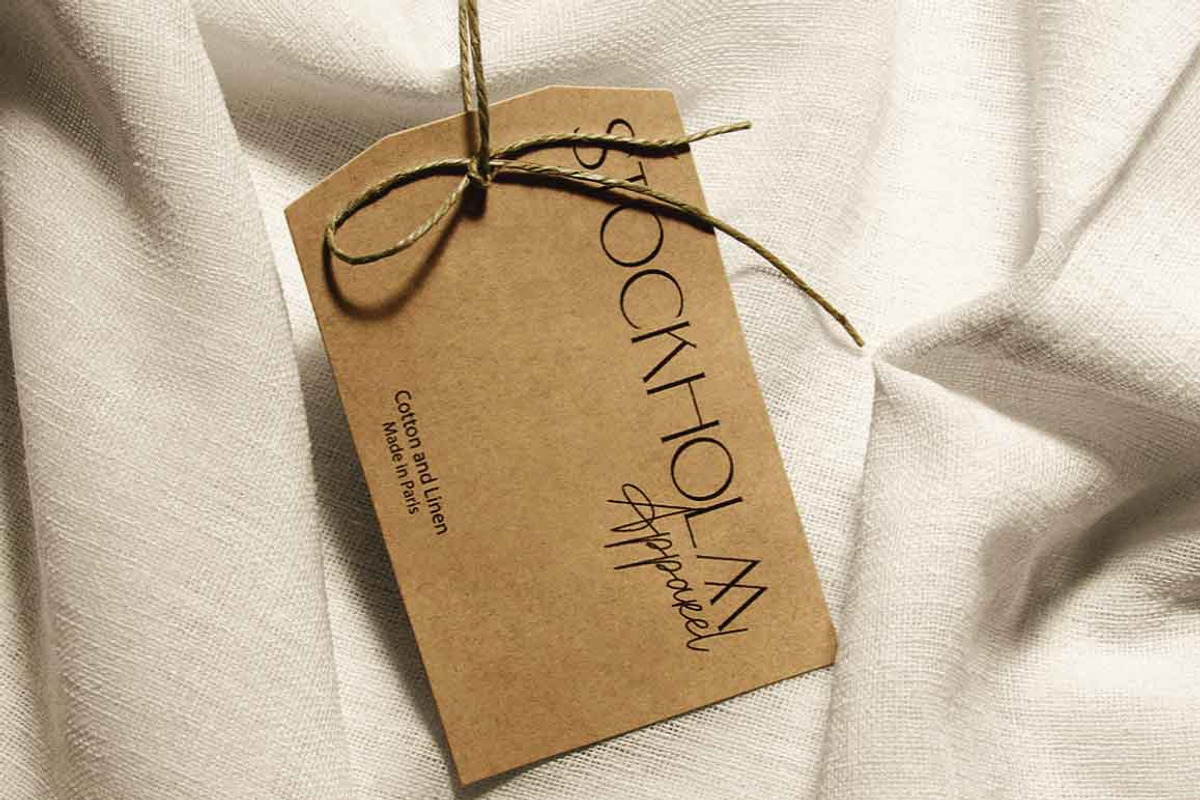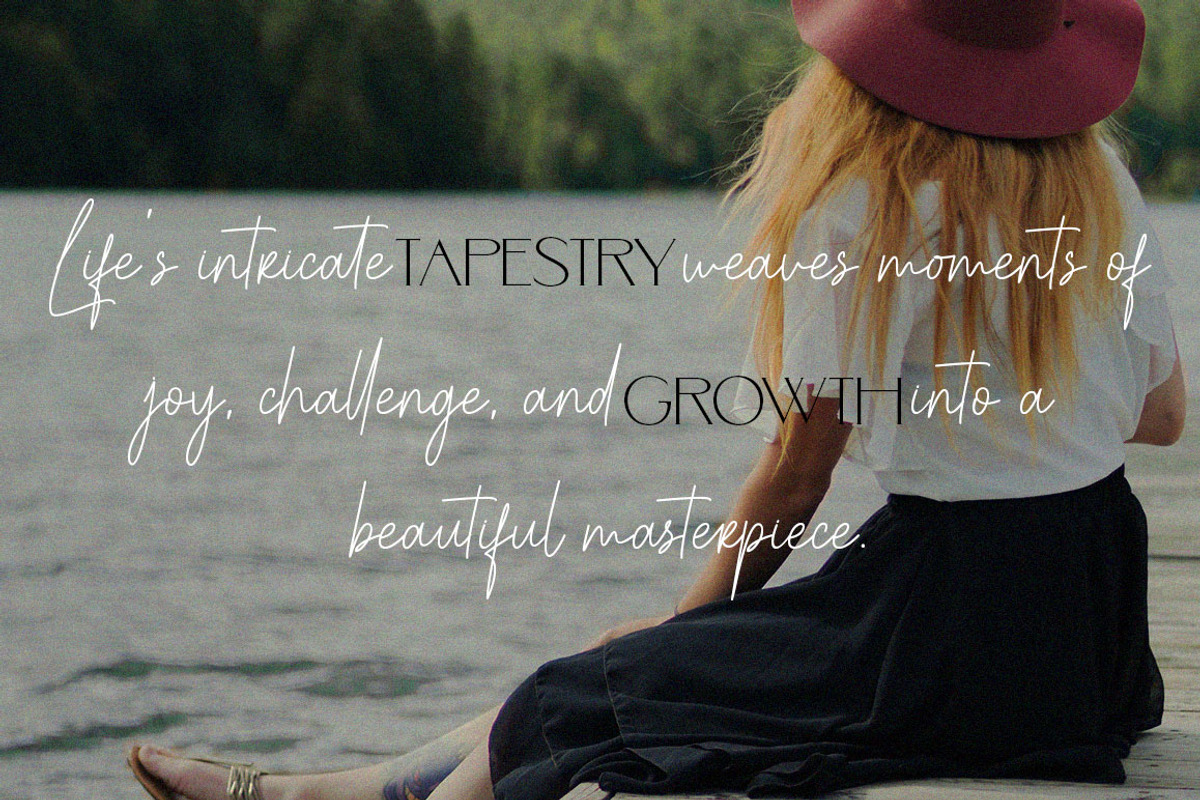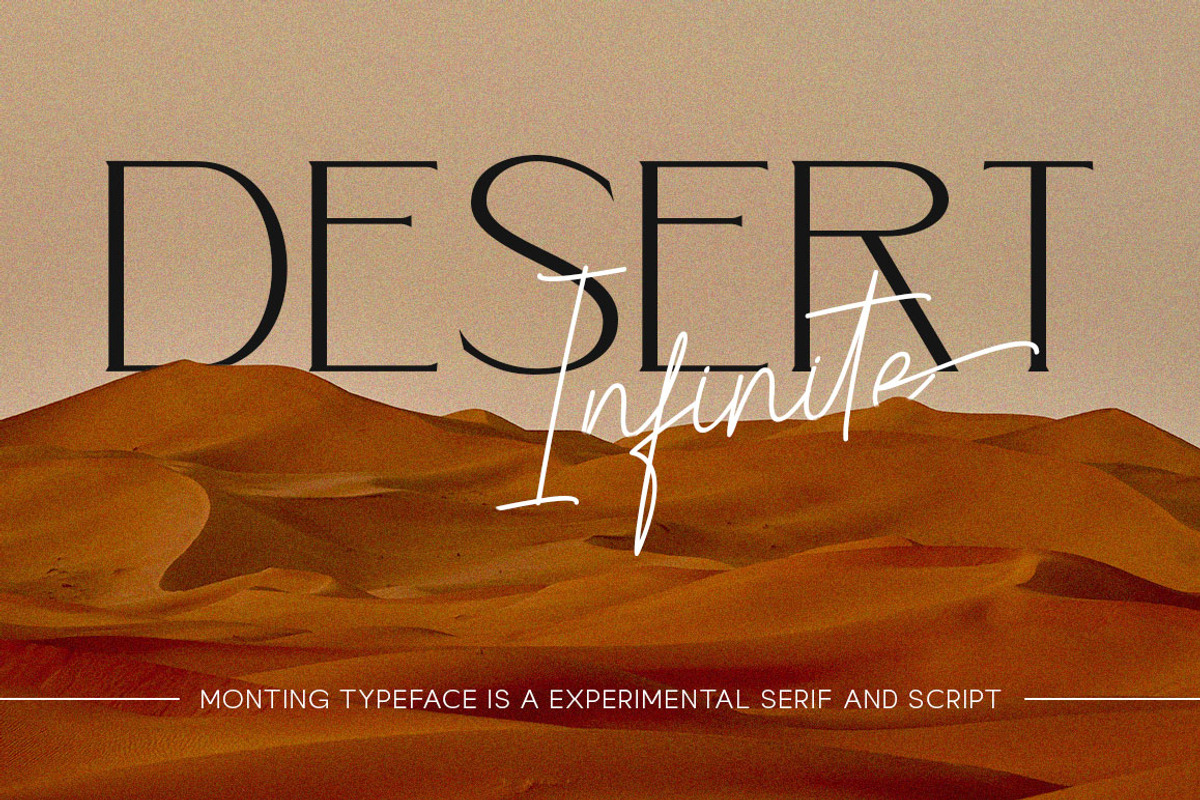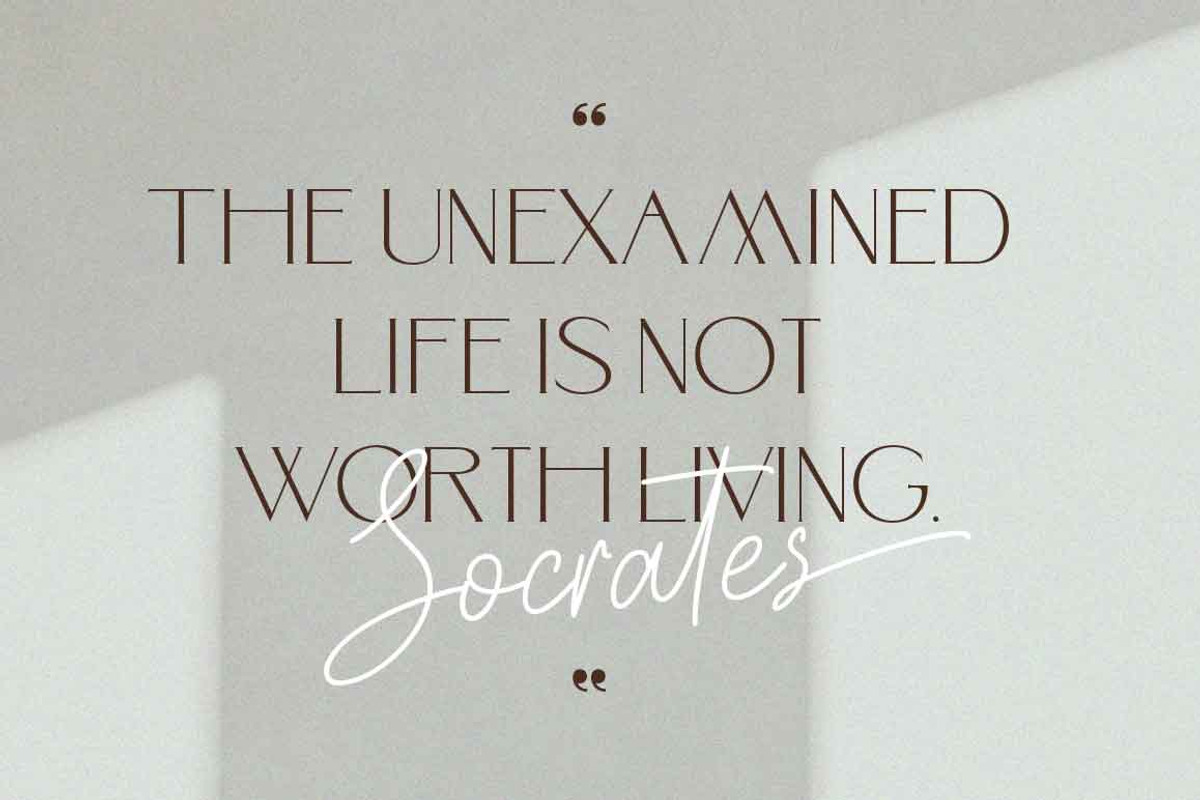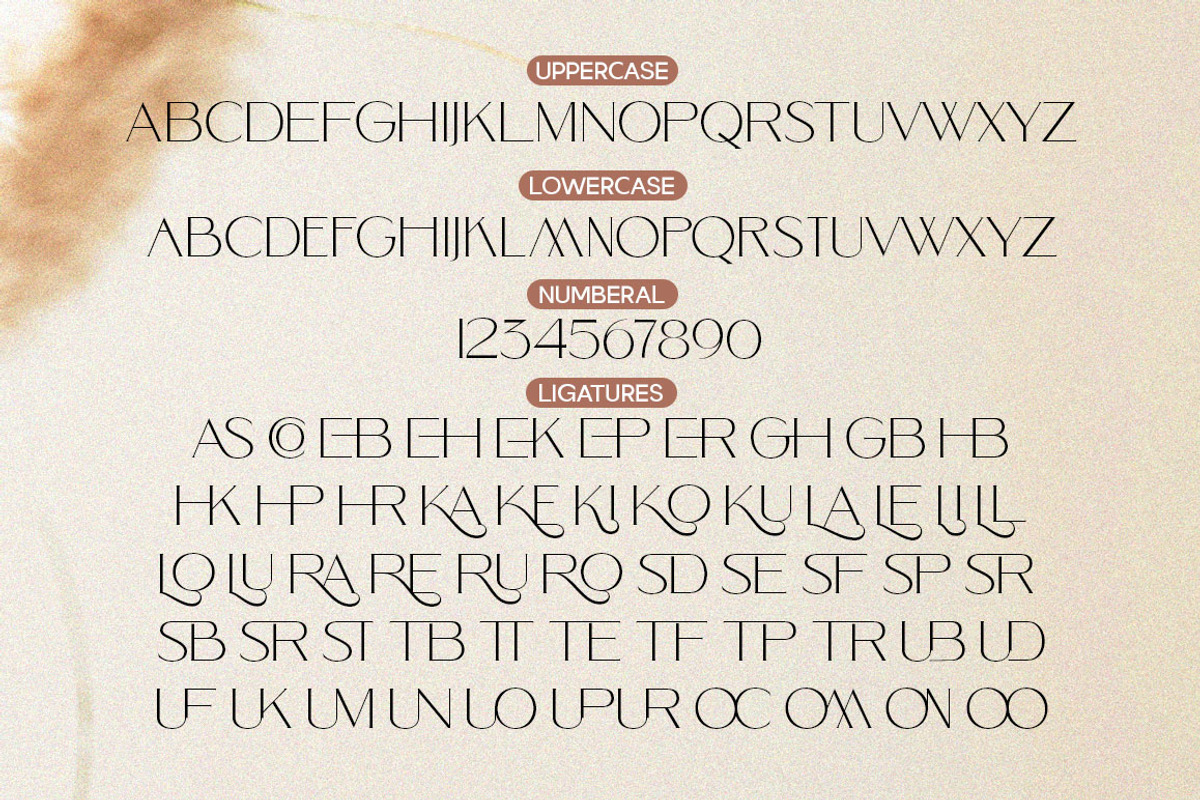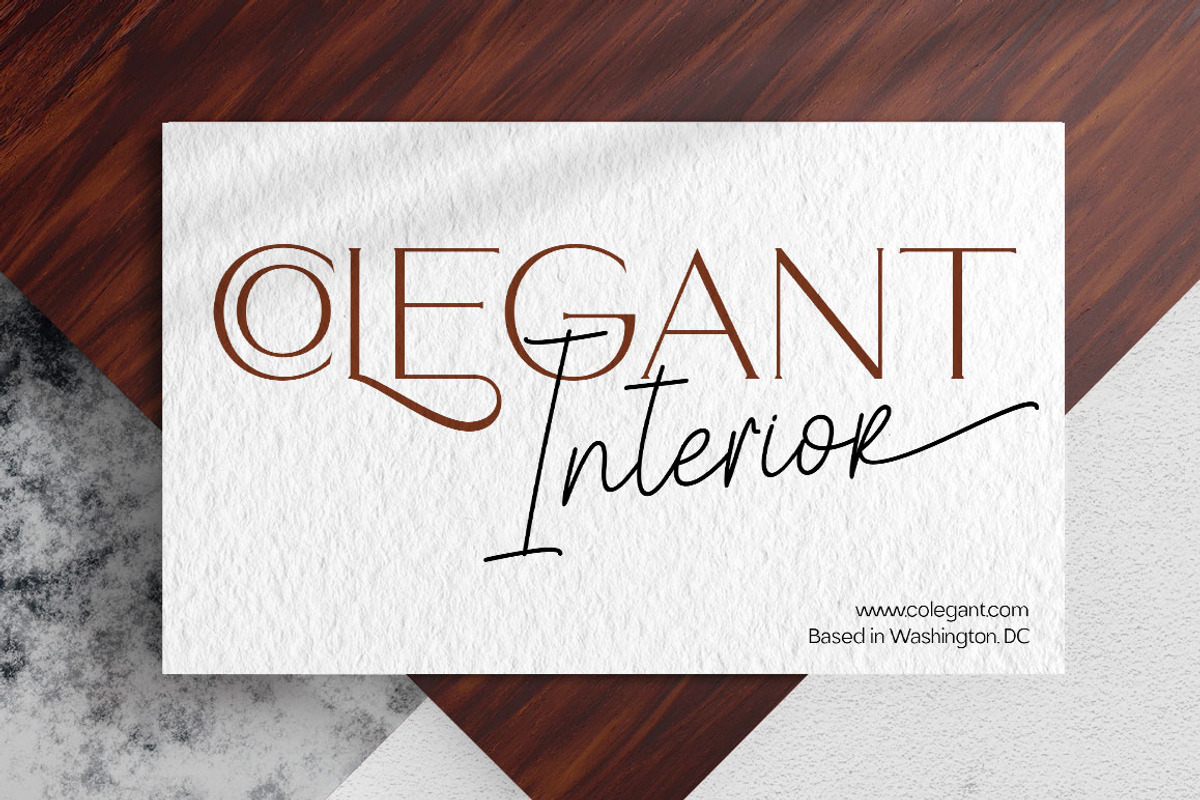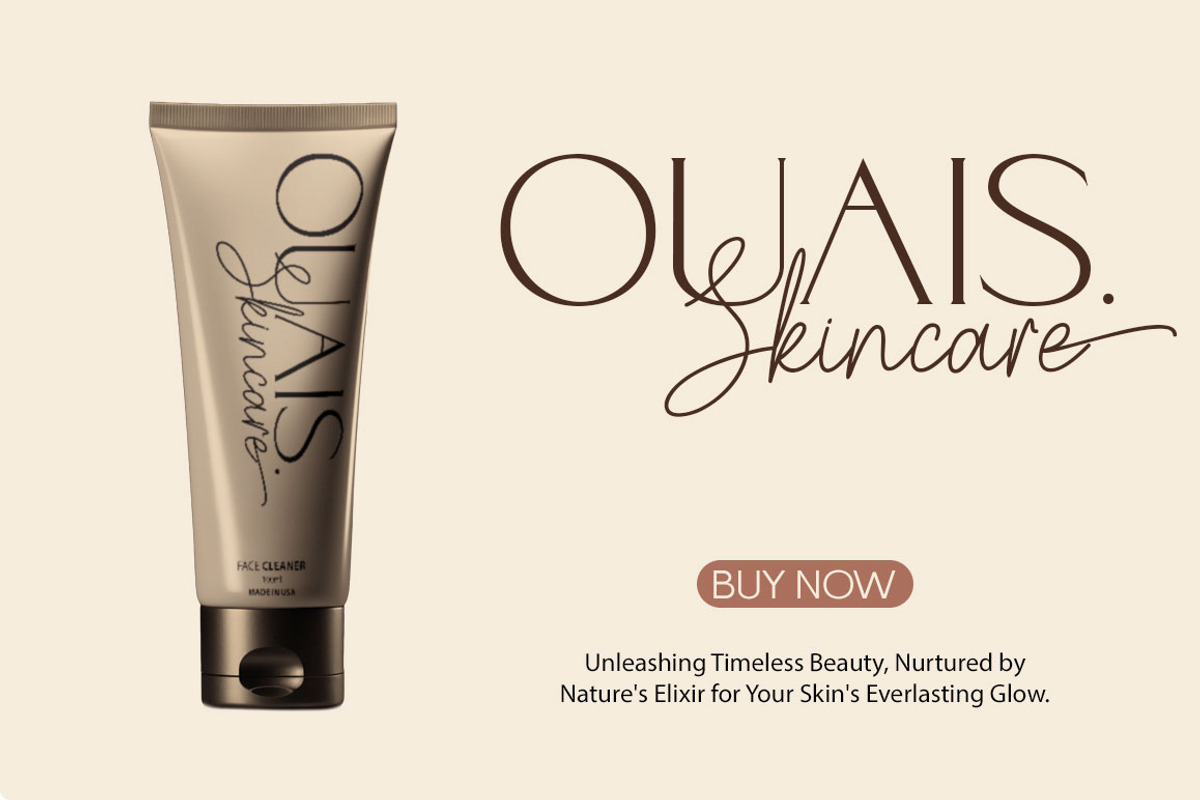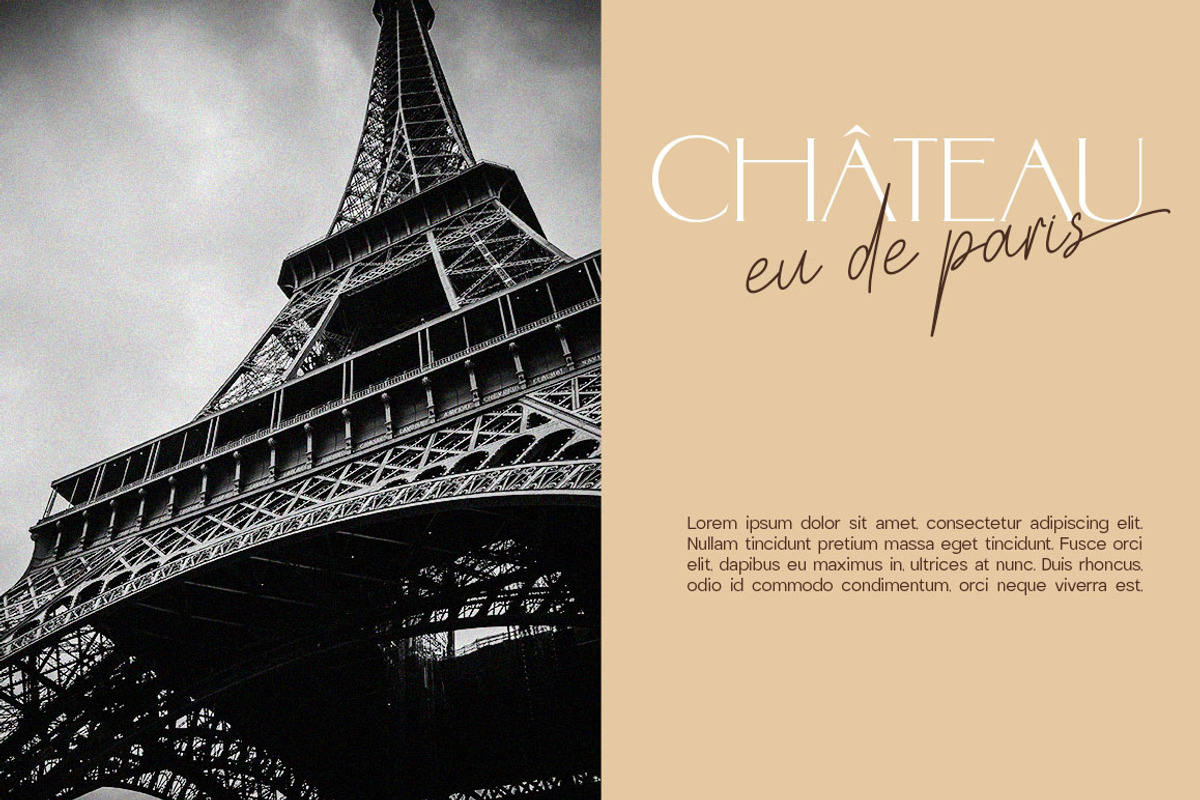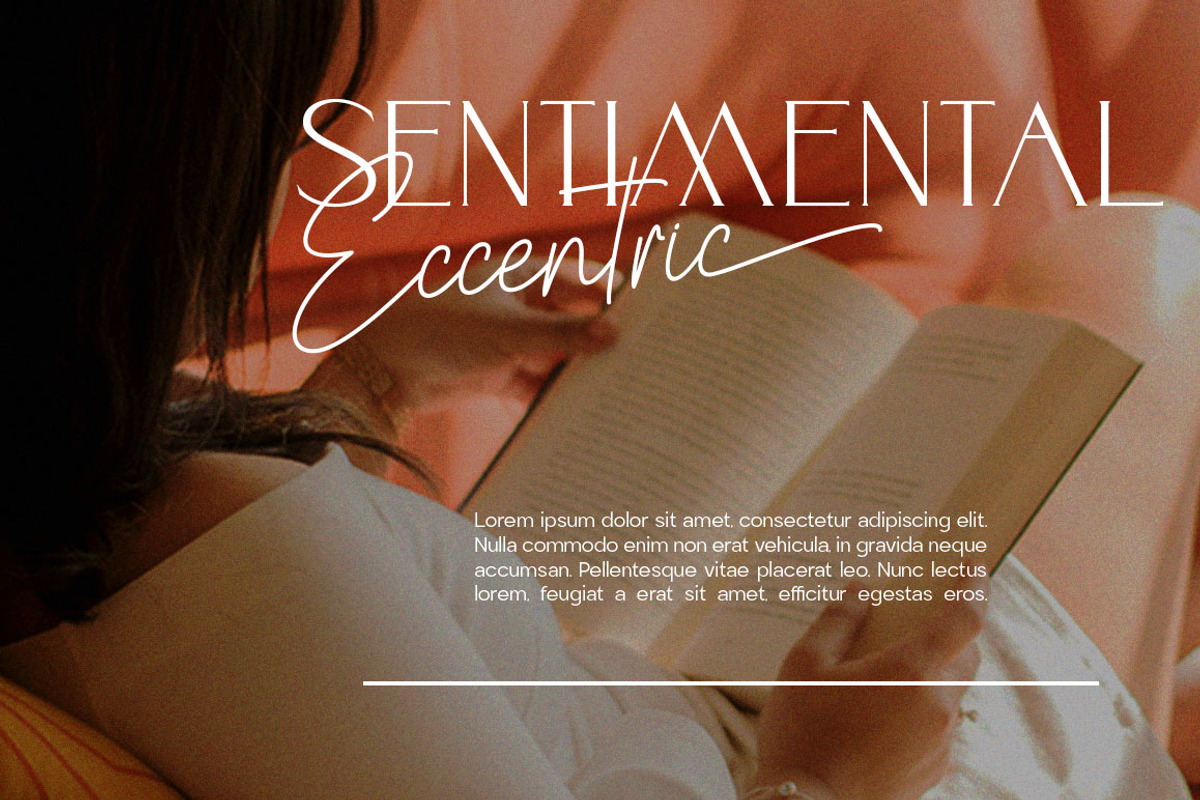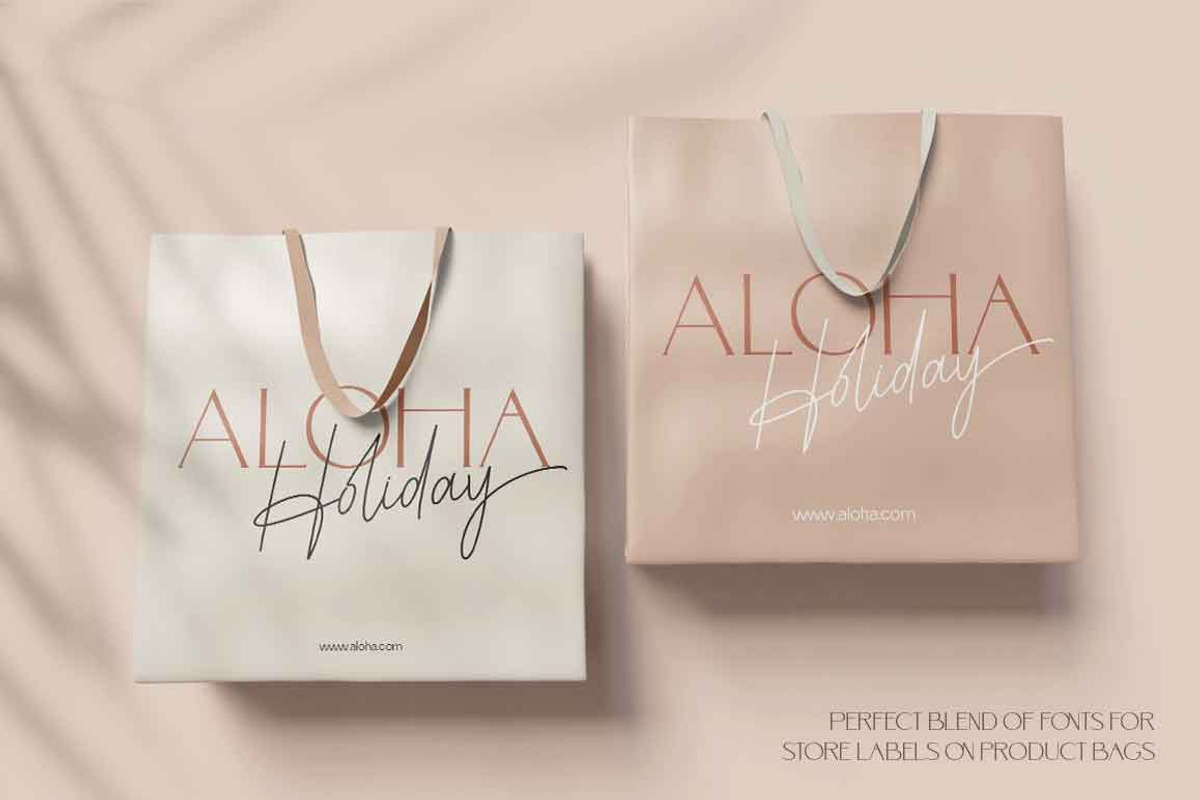
Monting Serif Script Modern Font Duo
Monting Serif is a luxury font Duo. which comes with a combination of modern and elegant fonts, namely sans and signature style. You can combine it to make beautiful typography. This hand Serif style makes it perfect for use in all your design projects be it logos, labels, packaging designs, blog titles, posters, wedding designs, social media posts, Instagram designs, card invitations, art quotes, home decor, book / cover titles , etc.
Already matched up and ready to be used together for your next design!
Monting Serif Script Regular / Serif • Thin and realistic signature fonts containing automatic ligatures, lowercase letters, uppercase letters, all punctuation & numbers.